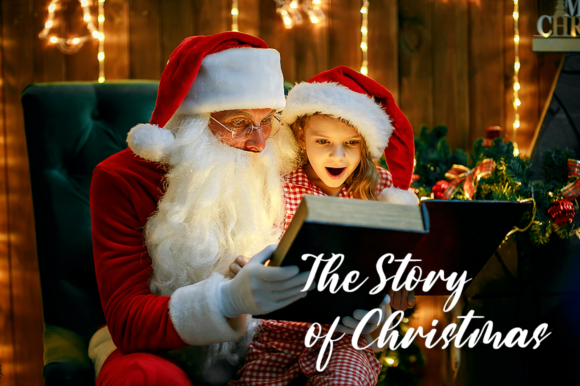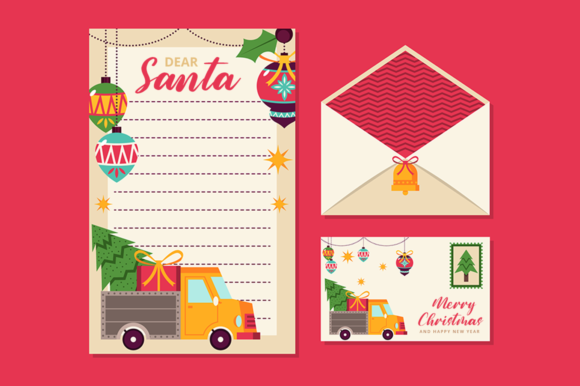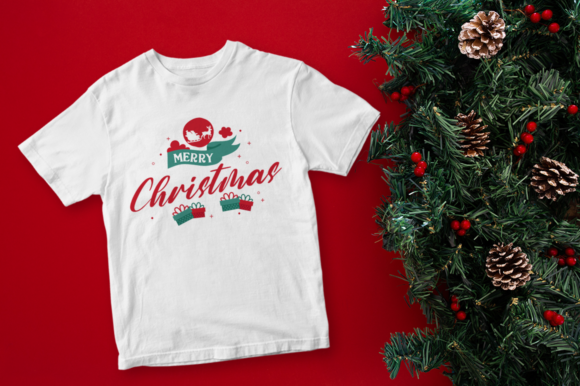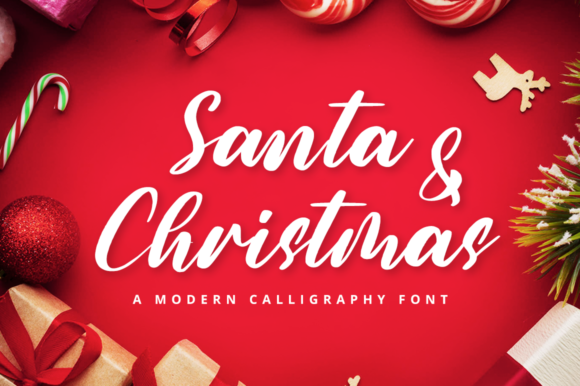
Introduction to Santa & Christmas Font
Santa & Christmas is a beautiful, rich, and elegant handwritten font.
It is ideal for holiday-themed greeting cards and for any crafting project that requires a warm touch This font is PUA encoded which means you can access all of the glyphs and swashes with ease.
Santa & Christmas Font offers exceptional quality and versatility, making it a valuable addition to your design toolkit. Whether you’re creating for personal projects or commercial use, Santa & Christmas Font delivers professional results.